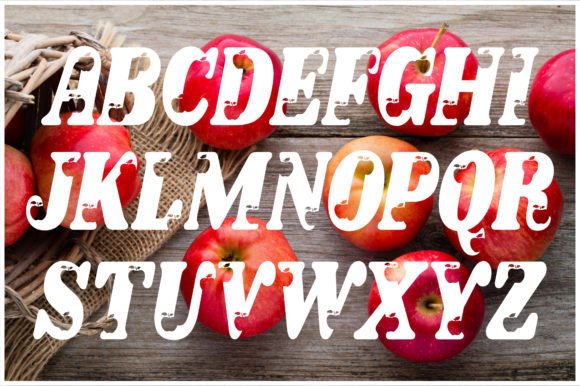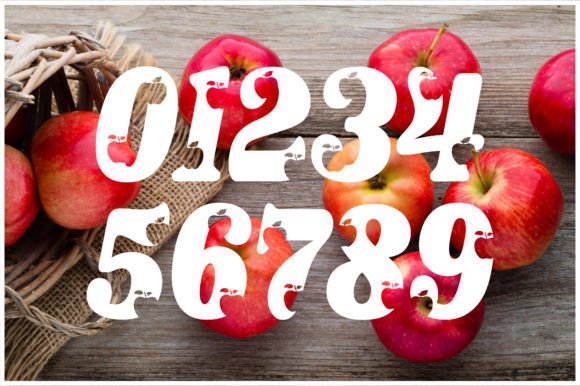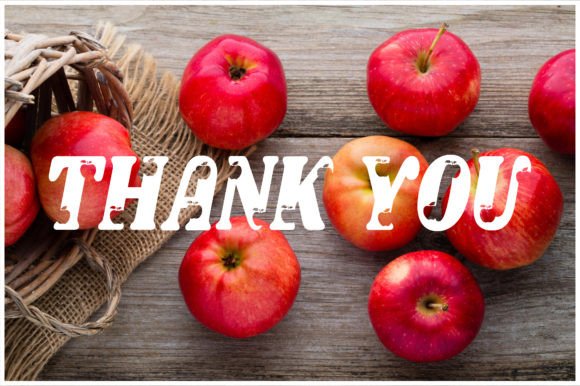
The Apple Font: A Game-Changer for Designers and Crafters
I’ll never forget the time I was working on a project for a client who wanted a bold, eye-catching font to make their brand stand out. I spent hours scouring the internet for the perfect font, but nothing seemed quite right. That was until I stumbled upon the Apple Font, a thick lettered and incredibly unique decorative font that completely transformed my design. In this article, I’ll share my experience with the Apple Font, its features, and how to make the most of it in various design platforms.
- ✨ Unique and bold design: The Apple Font is unlike any other font I’ve come across. Its thick letters and decorative style make it perfect for headlines, titles, and emphasis.
- ✅ Versatility: This font can be used for a wide range of projects, from crafting and DIY tutorials to professional designs and branding.
- 💡 Inspires creativity: The Apple Font’s distinctive style is sure to spark your creativity and inspire new ideas.
While the Apple Font is an excellent choice for many projects, there are a few things to keep in mind:
- 🤔 Legibility at small sizes: Due to its bold and decorative nature, the Apple Font may not be the best choice for body text or small font sizes.
- ⚠️ Limited use in formal designs: The Apple Font’s playful style may not be suitable for formal or professional designs that require a more traditional font.
- Experiment with the font’s OpenType features, such as stylistic alternates and glyphs, to add more flair to your design.
A Brief Backstory: The Inspiration Behind the Apple Font
The Apple Font was designed with the goal of creating a unique and eye-catching font that would stand out in a crowded design landscape. Inspired by classic typography and modern design trends, the Apple Font’s creator aimed to craft a font that would be both bold and beautiful.
| Font Name | Apple Font |
| Author | AvocadoSVG |
Q: What type of projects is the Apple Font best suited for?
A: The Apple Font is versatile and can be used for a wide range of projects, including crafting, DIY tutorials, professional designs, and branding.
Q: Is the Apple Font suitable for body text?
A: While the Apple Font is beautiful, it’s not ideal for body text due to its bold and decorative nature. It’s better suited for headlines, titles, and emphasis.